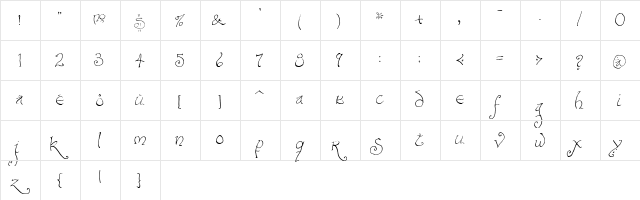
Bilbo-hand-fine Regular
Design Context for Bilbo-hand-fine Typeface
Bilbo-hand-fine brings a calligraphic fluidity to the page — its connecting strokes and expressive curves give it an unmistakably human quality.
Font Pairing: Combine Bilbo-hand-fine with a simple geometric sans for maximum contrast — the tension between flowing curves and clean structure is a classic typographic pairing.
Pro Tip: Pair Bilbo-hand-fine with a clean sans-serif for supporting text. The contrast between fluid script and geometric structure creates an elegant typographic hierarchy.